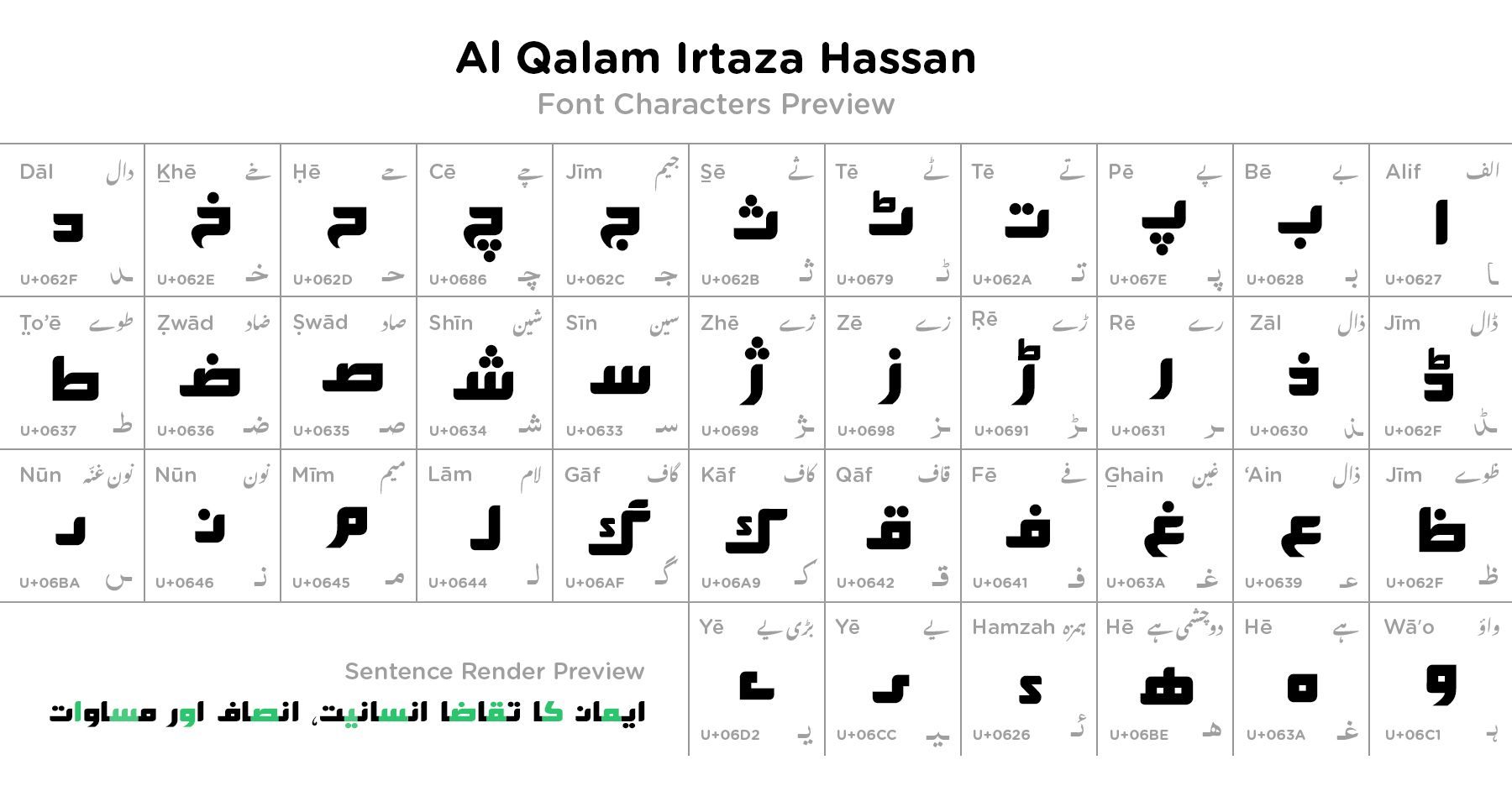
AlQalam Irtaza Hasan is a bold geometric Urdu Font that draws inspiration from traditional Naskh and Kufic script. It was designed by a Pakistani calligrapher, Muhammad Ishtiaq Ali Attari, from Faisalabad, and released under the trademark Attari Qadri in 2010. It's a multipurpose typeface that can make attention-grabbing bold headings in newspapers and official documents, as well as creative posts, headers, logos, and more. The font has a broad character set, having 444 characters and 497 glyphs. Its bold and thick nature allows it to be highly legible on screen. Moreover, it is compatible with 11 Unicode blocks, including Basic Latin Latin-1 Supplement, Spacing Modifier Letters, Arabic, General Punctuation, Greek, and Coptic, among others. It is, however, only available in regular font size. Considering Al Qalam Irtaza Hassan's design elements, the font offers a clean overall look with almost no design elements. The thickness of the stroke remains constant throughout the letters, creating a strong impression. Plus, the square-like element in the characters, inspired by traditional Kufic script, adds a visual interest even more.